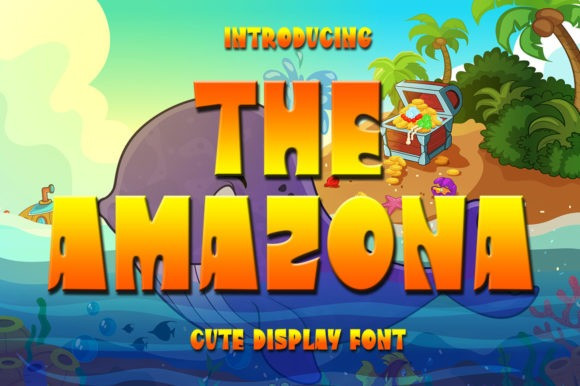
The Amazona Font
The Amazona Font is a bold and thick lettered display font. Whether you’re using it for crafts, digital design, presentations, or making greeting cards, this font has the potential to become your favorite go-to font, no matter the occasion!